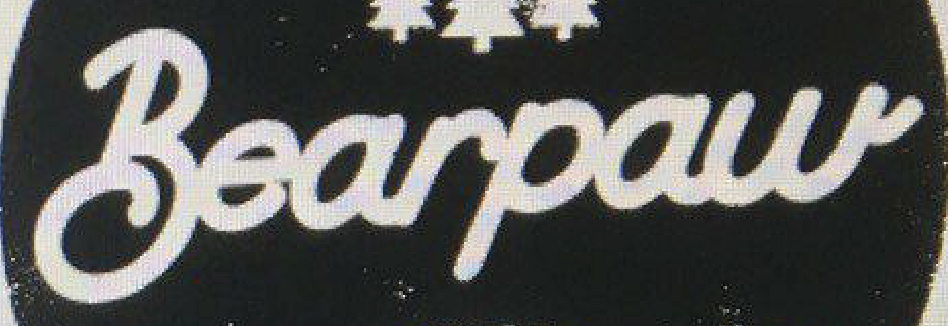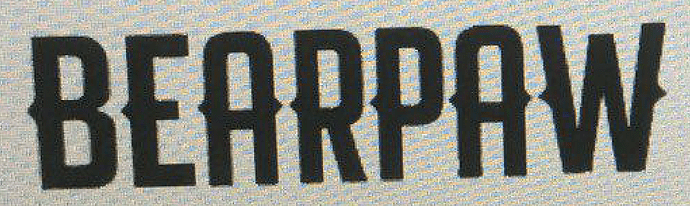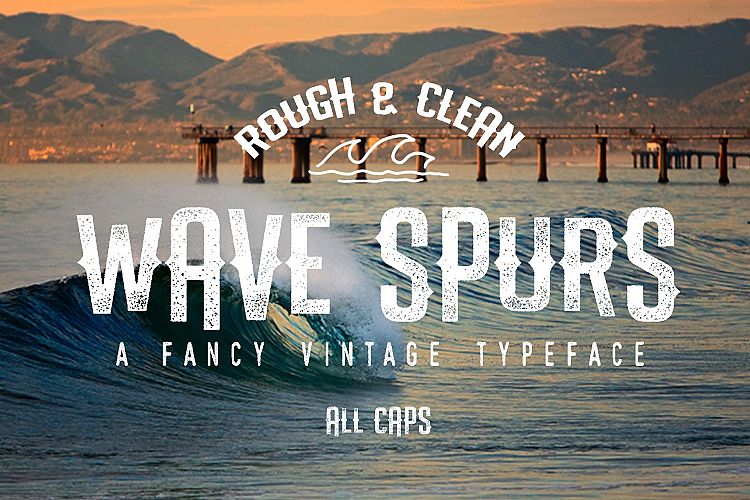
What's this font?
Does anyone know what these 2 fonts are?
I have to create this logo for a client and unfortunately they do not have a vector file or a better image for me to work with,
I am hoping to find the font to create less work for myself.
I have tried WhatTheFont, Font Squirrel and Font Spring with no luck.
Top one is Buffalo
Buffalo
second one looks similar to depalma, but there is a difference in some letters. some research online may lead to the exact match.
The second one is Wave Spurs Clean with a few minor adjustments